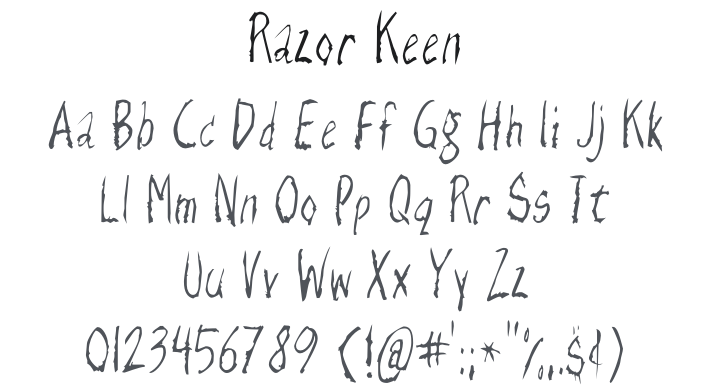
Razor Keen Font
About Razor Keen
Razor Keen is a terrifying horror handwriting display typeface — thin, scratchy letterforms scrawled with a mapping quill on newsprint, each stroke jagged and trembling with unhinged menace. The frantic, slasher-movie energy makes every word feel like a threatening note left at a crime scene. Perfect for horror game titles, Halloween designs, thriller posters, psychological horror branding, and any headline that needs to send a genuine chill down the spine.